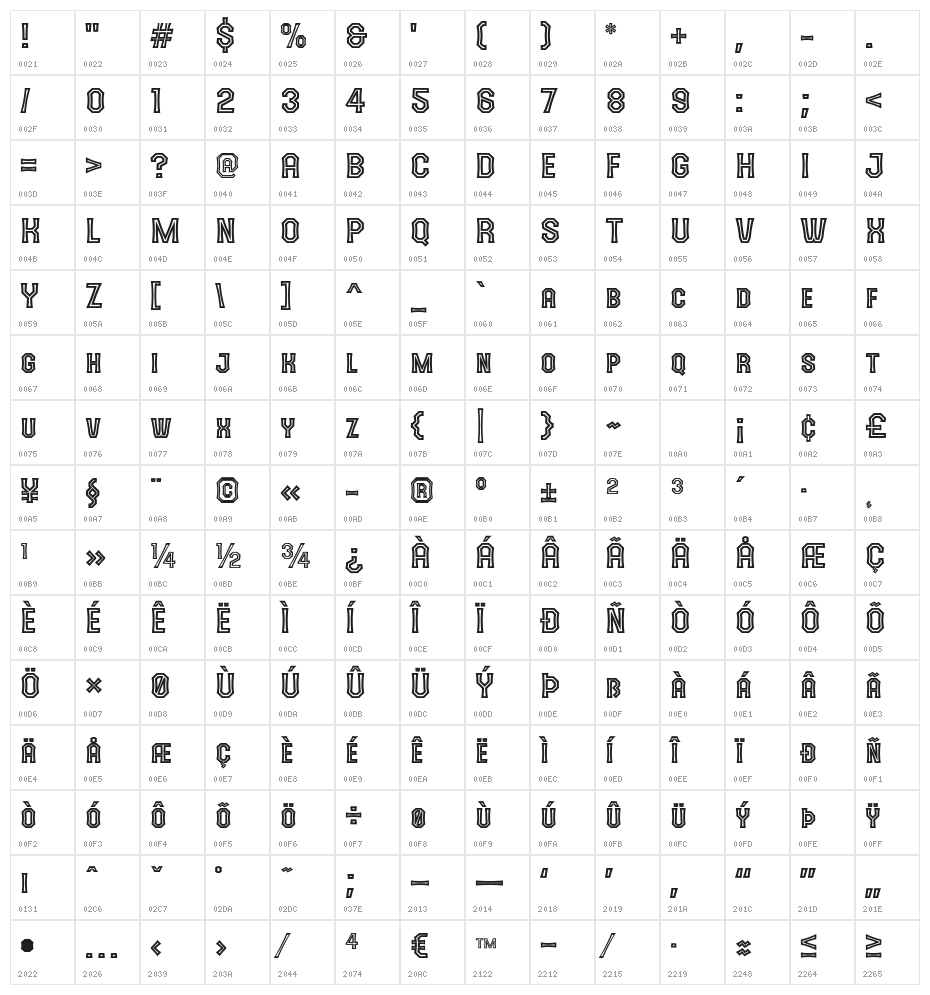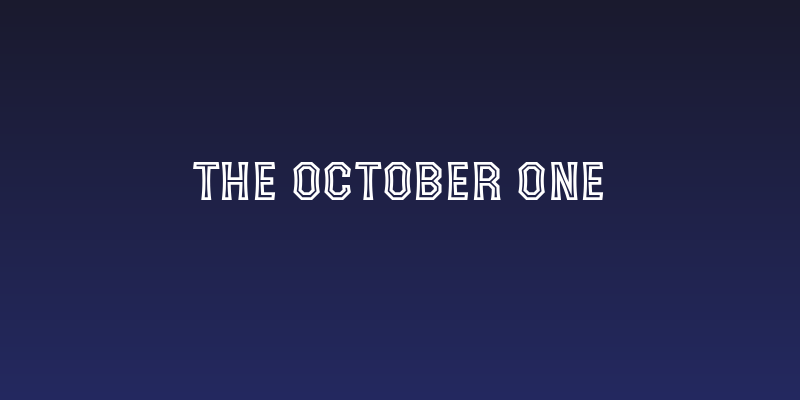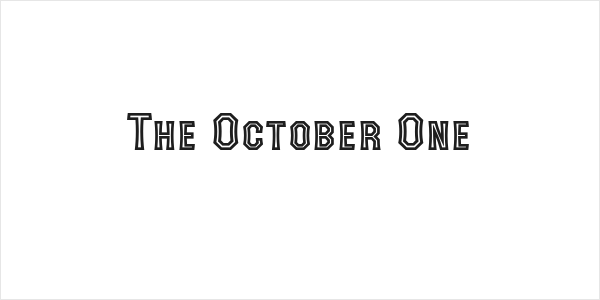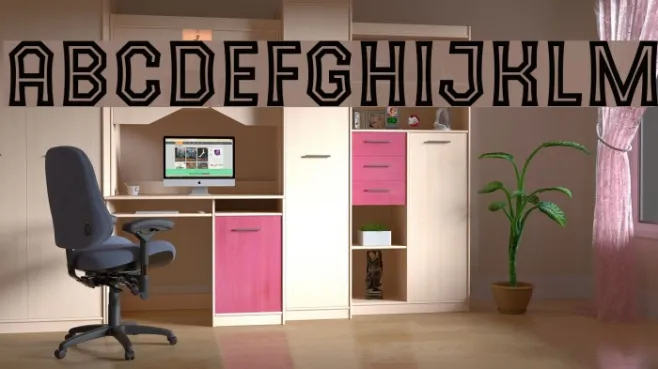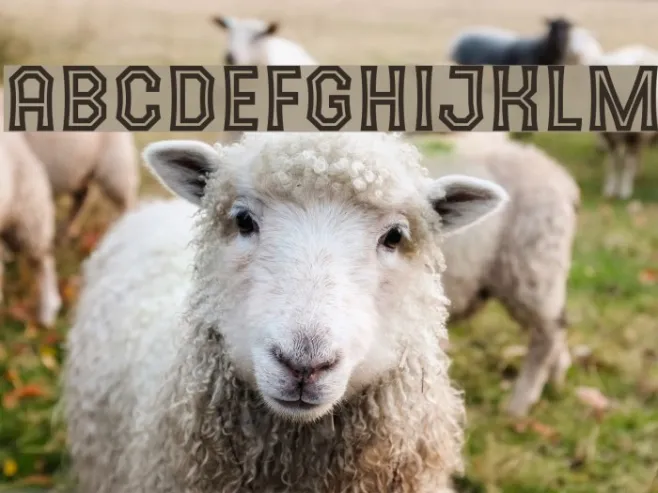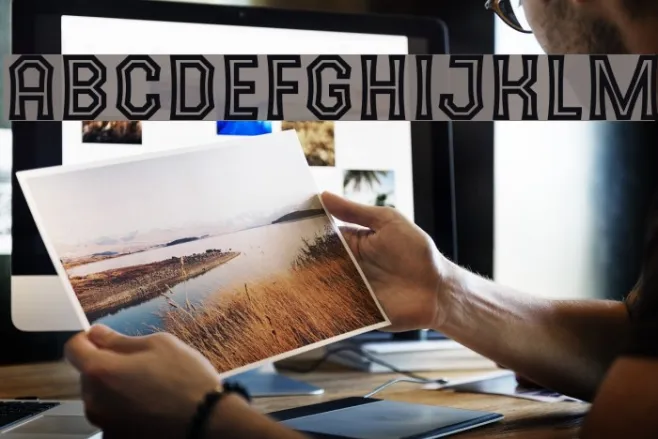
The October One Font
The October One Description
This font features a bold, geometric design with a strong emphasis on angular shapes and outlines. Each character is constructed with a double-line effect, creating a sense of depth and dimension. The uppercase and lowercase letters maintain a consistent style, with sharp edges and a structured form. Numbers and special characters are designed to match the bold and striking appearance of the alphabet, making the font highly cohesive. The overall look is modern and eye-catching, suitable for projects that require a standout typeface.
| Proposed Projects | Ideal for posters, logos, headlines, and branding materials that need a bold statement. |